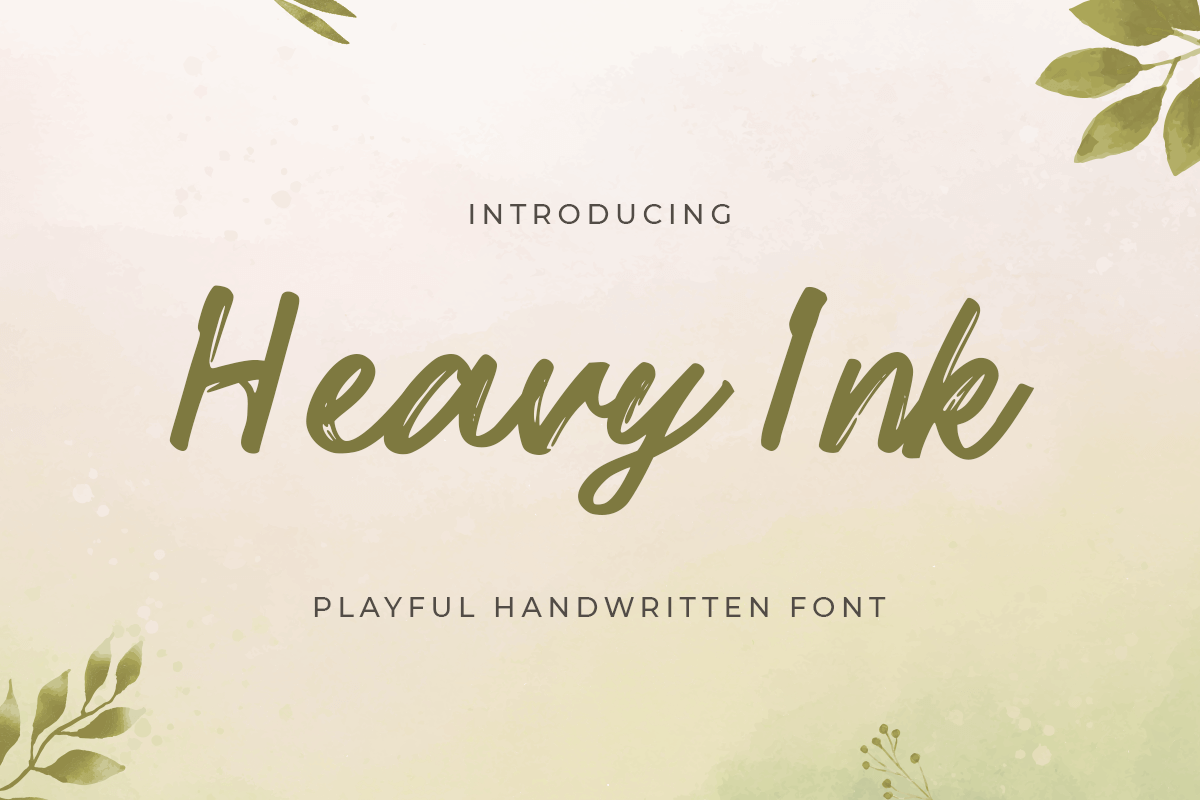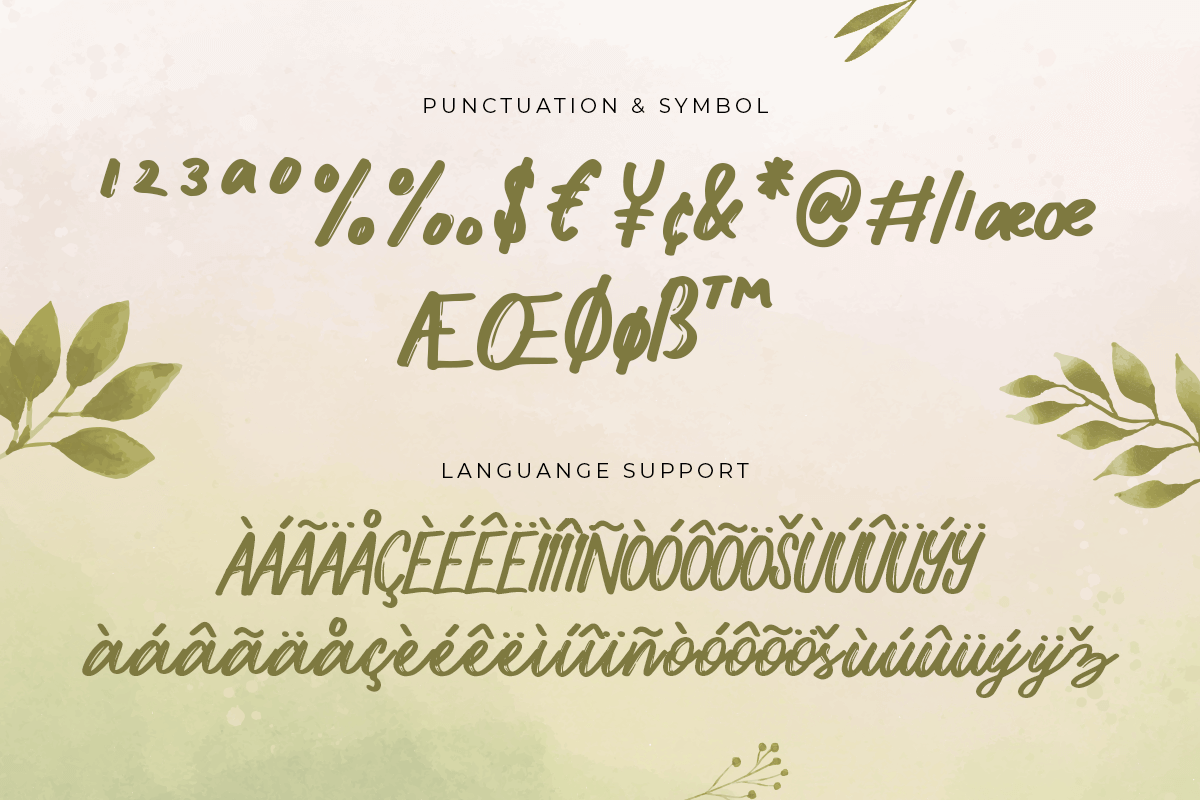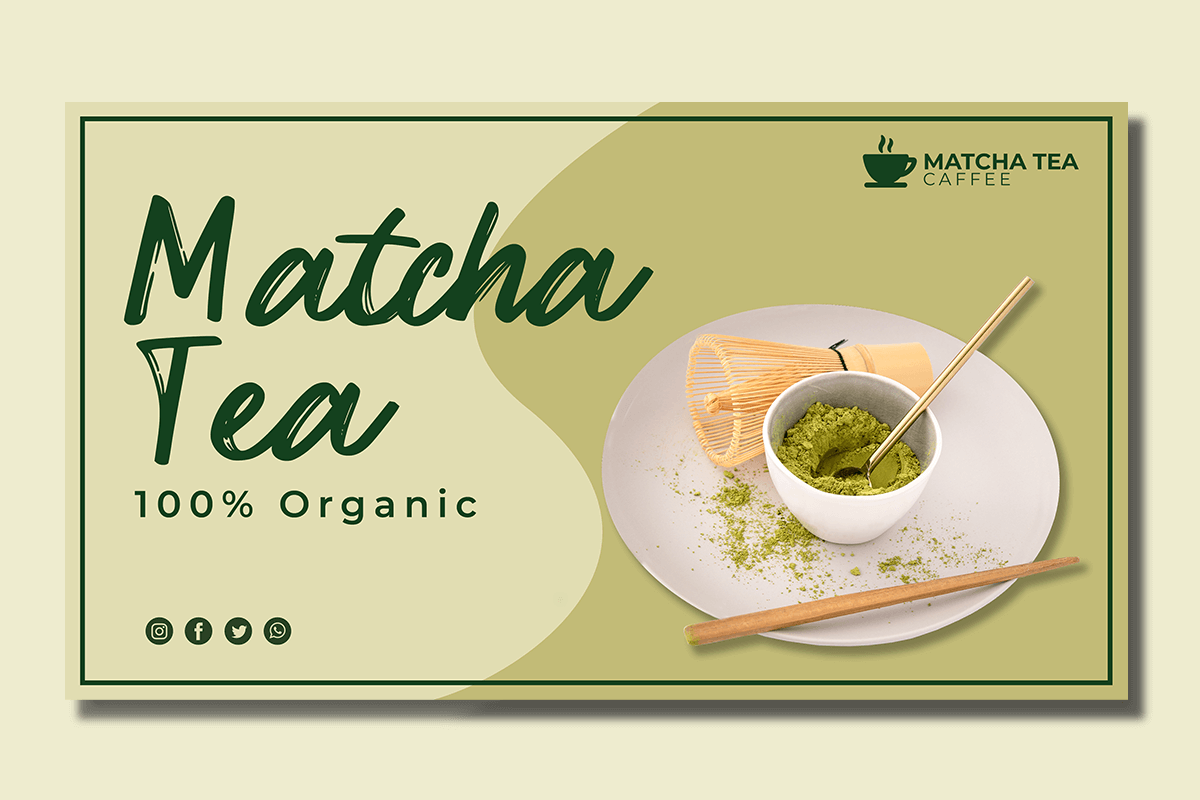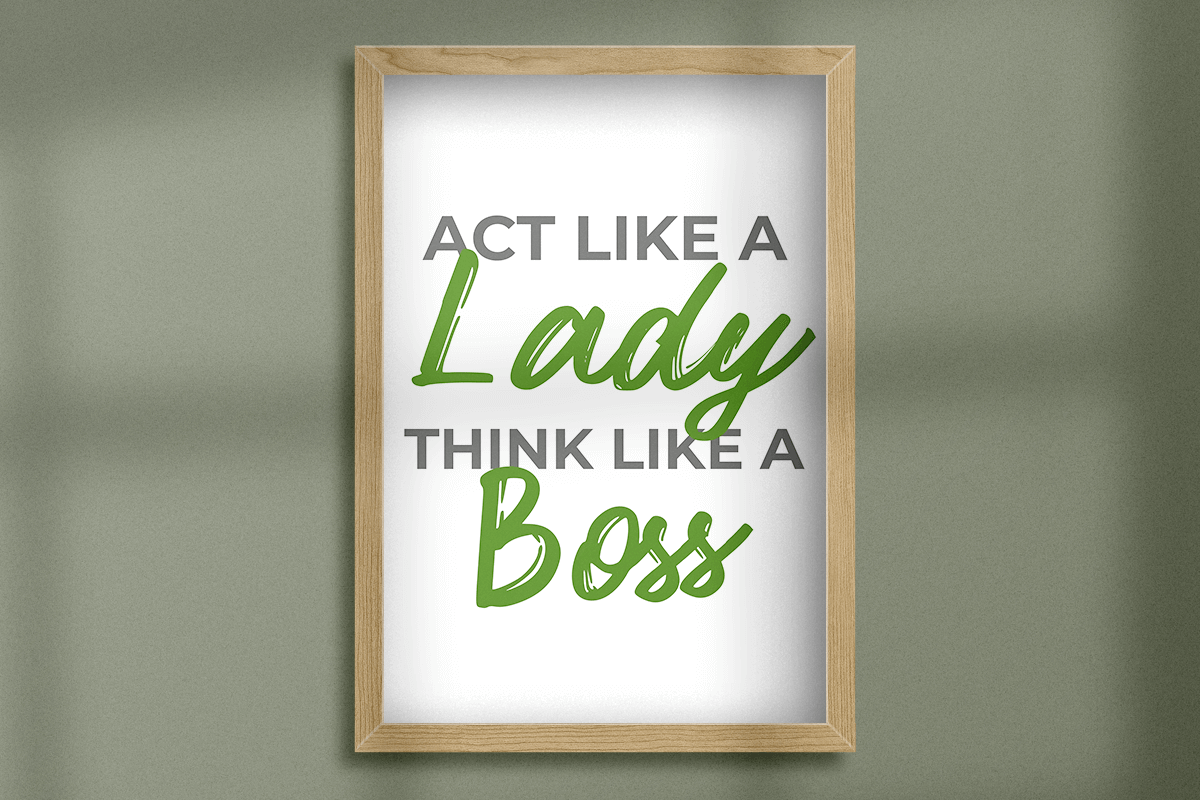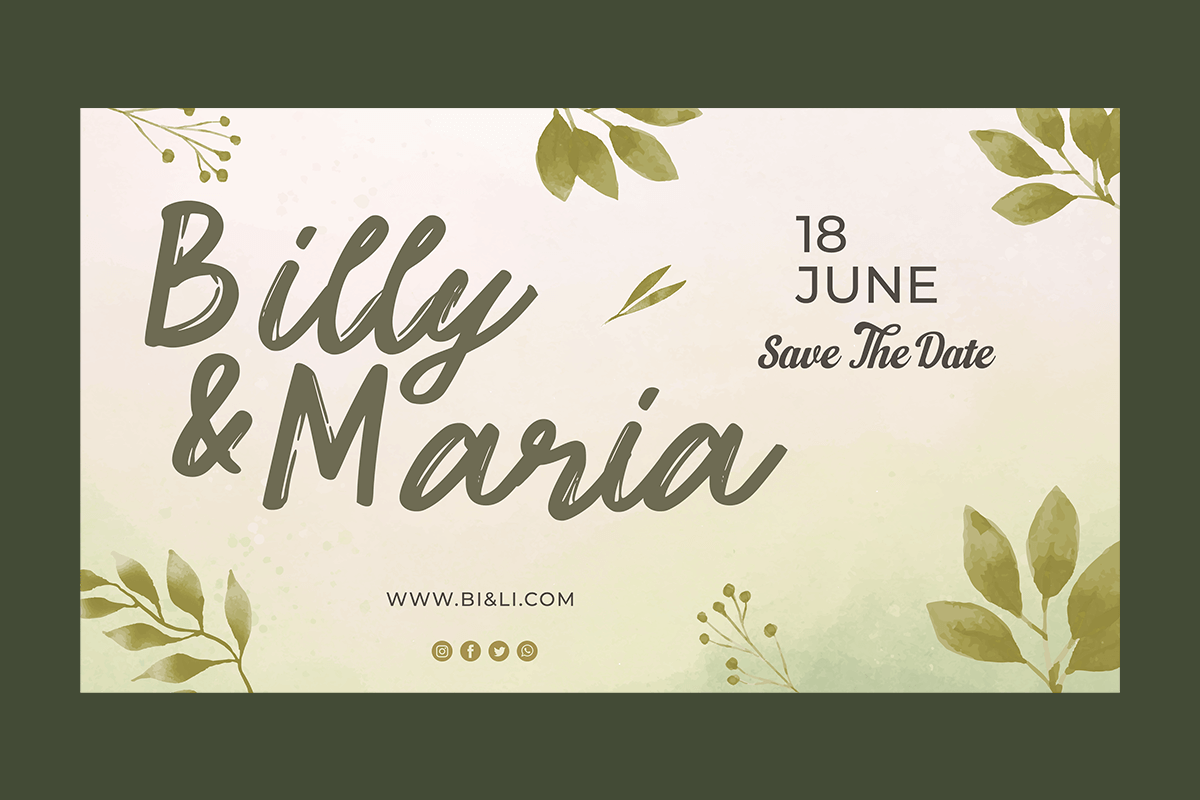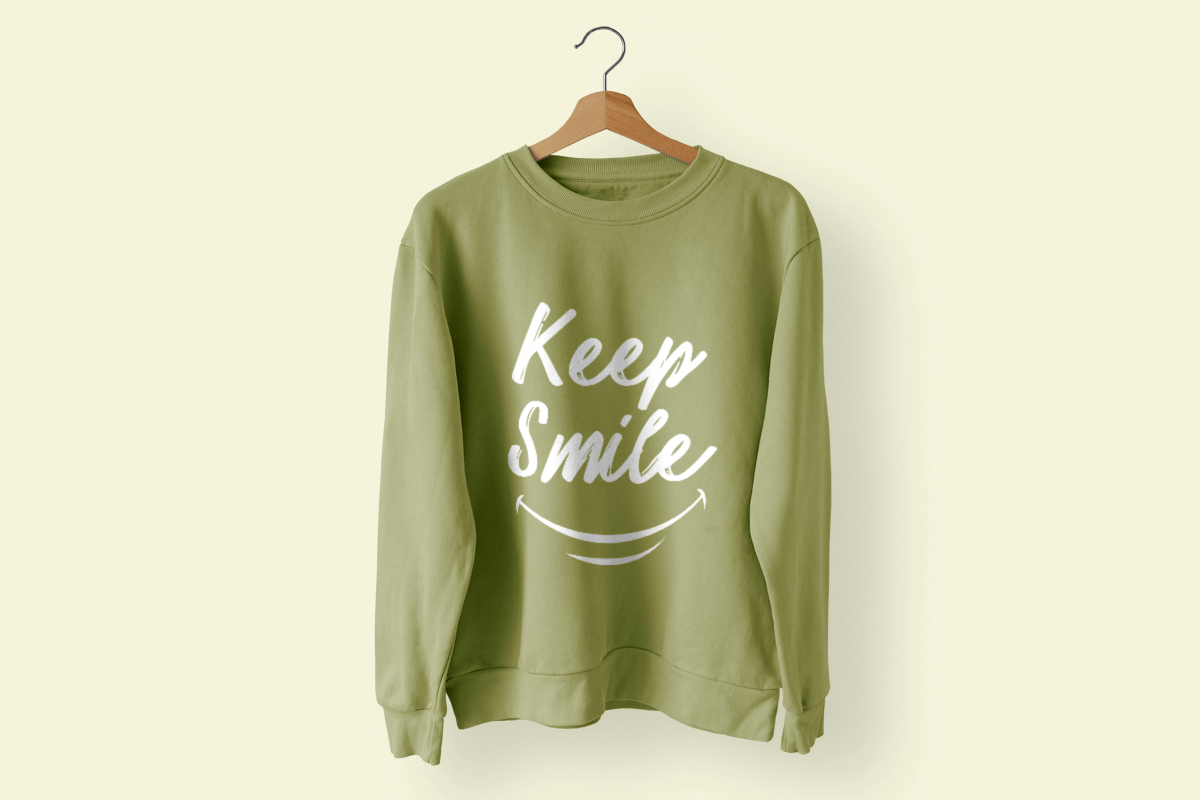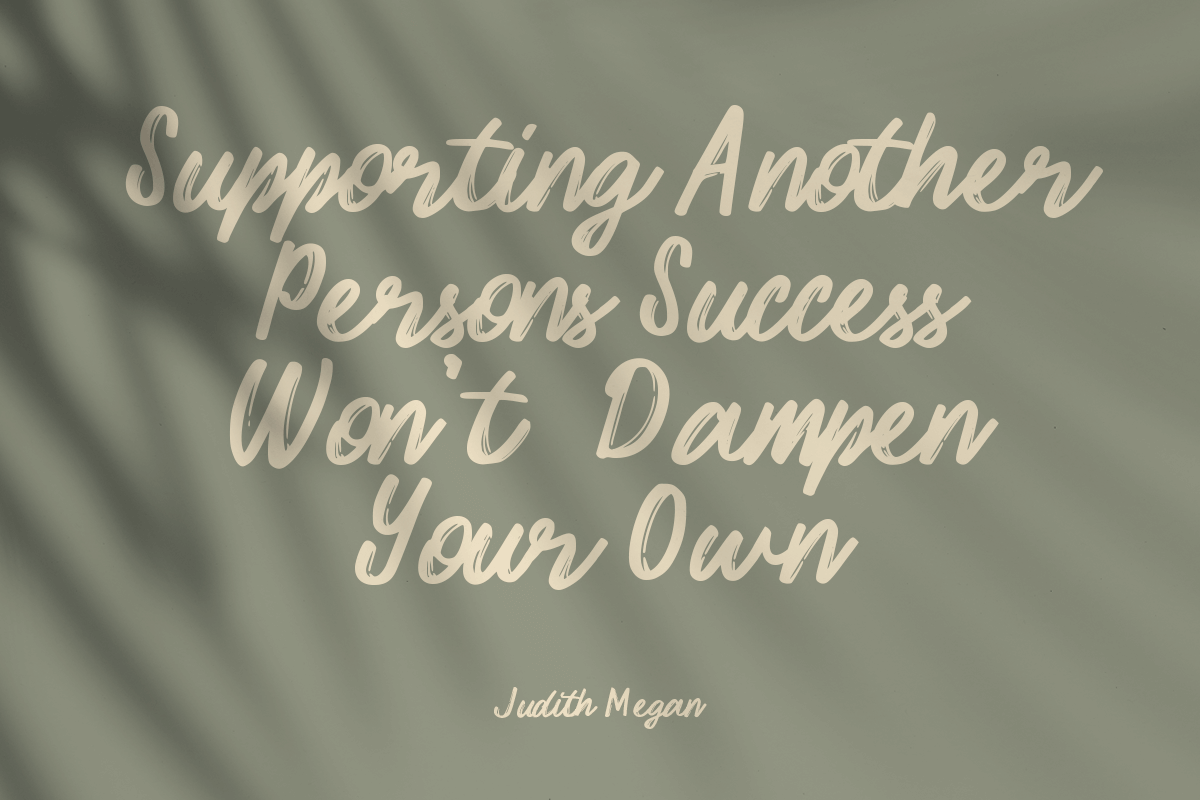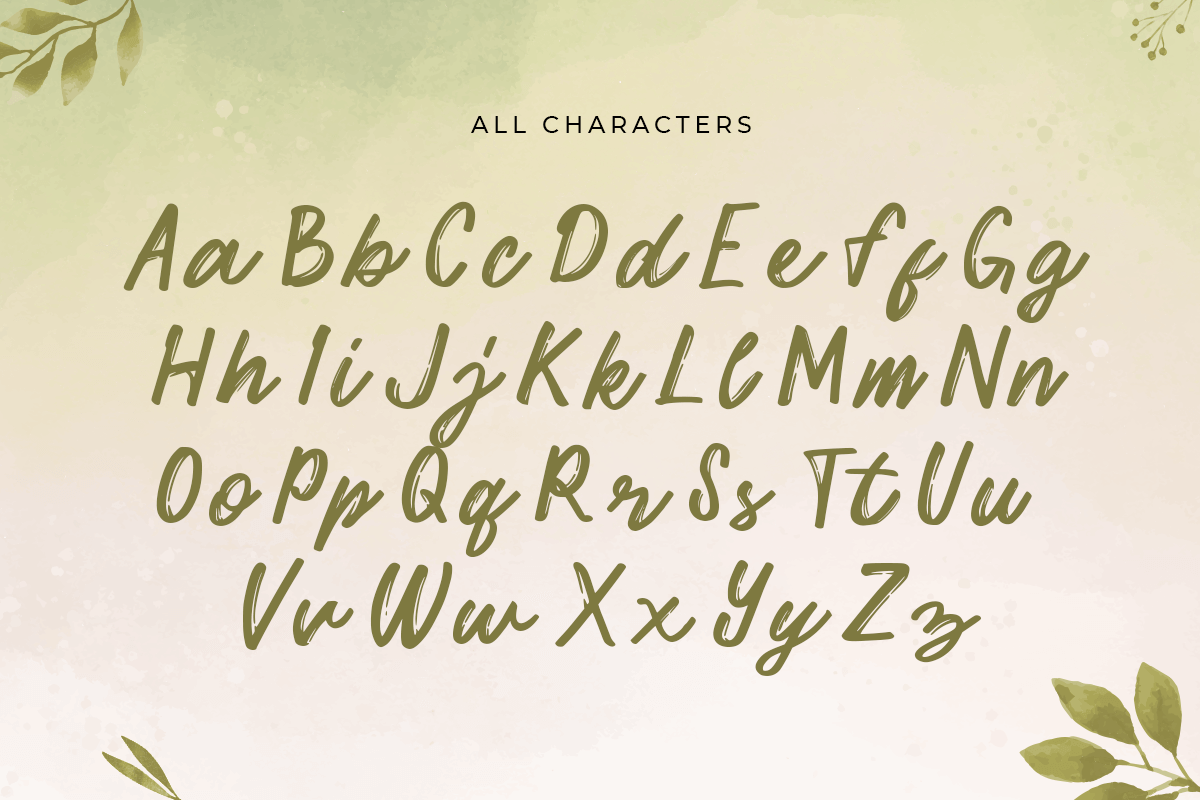
Heavy Ink
-Playful Handwritten Font
Heavy Ink
Heavy Ink  - a Modern Playful Handwritten Font. Inspired from beauty and feminine style very good for signature, stationery, logo, typography quotes, magazine or book cover, website needs.